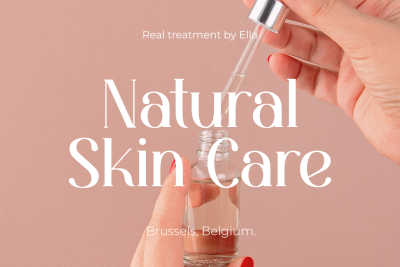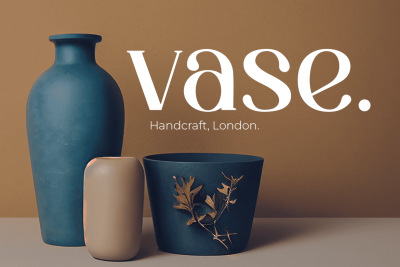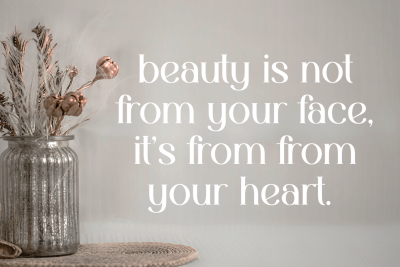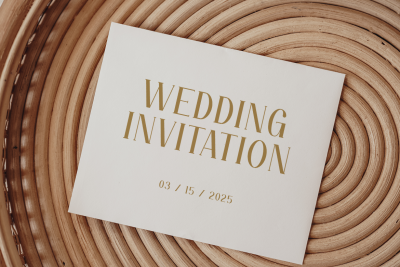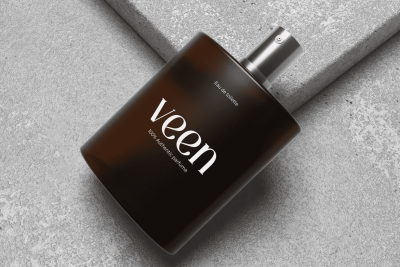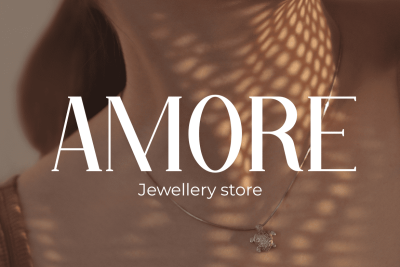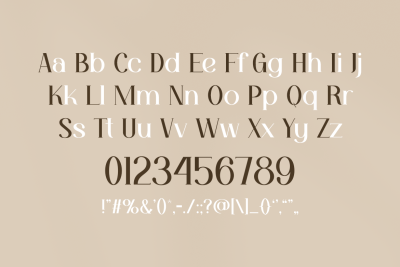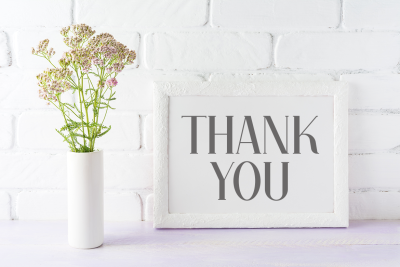
Instagram Font Govinda is a modern serif display typeface that combines elegance with versatility. Its tall letterforms and sharp details give it a refined, professional look, making it perfect for high-impact designs. With smooth curves and clean lines, the font strikes a balance between classic sophistication and contemporary minimalism. Whether youโre creating eye-catching headlines or stylish branding materials, Instagram Font Govinda ensures your message is delivered with authority and grace.
This fontโs versatility extends across both digital and print mediums. Its high contrast strokes and well-spaced characters make it highly legible, even in smaller sizes. Moreover, the unique blend of sharp serifs and soft curves allows Govinda to adapt seamlessly to a wide range of design styles. Whether your project leans toward modern simplicity or timeless luxury, this typeface can enhance your visual storytelling effortlessly.
Furthermore, the fontโs modern yet timeless design makes it an ideal choice for creating logos, editorial layouts, or social media posts. Its adaptability ensures that your designs will remain fresh and relevant, no matter the context.
Instagram Font Govinda Who is it suitable for?
Instagram Font Govinda is ideal for creatives and professionals looking to add a touch of sophistication to their projects. It works particularly well for social media influencers, brands, and content creators aiming to elevate their Instagram visuals. Fashion bloggers, luxury lifestyle brands, and wedding planners will find this font especially fitting for its stylish, premium appeal.
Additionally, graphic designers can use Govinda for creating logos, product packaging, or invitations. Entrepreneurs in the beauty, fashion, and hospitality industries will also appreciate the fontโs ability to convey a polished, high-end aesthetic. Moreover, marketers can leverage it for impactful advertisements, banners, and promotional campaigns.
Whether youโre designing for the web or print, this font is an excellent choice for anyone who values elegance and versatility. Itโs a must-have for creative professionals seeking a typeface that combines beauty and functionality. With Instagram Font Govinda, your designs will stand out and leave a lasting impression.